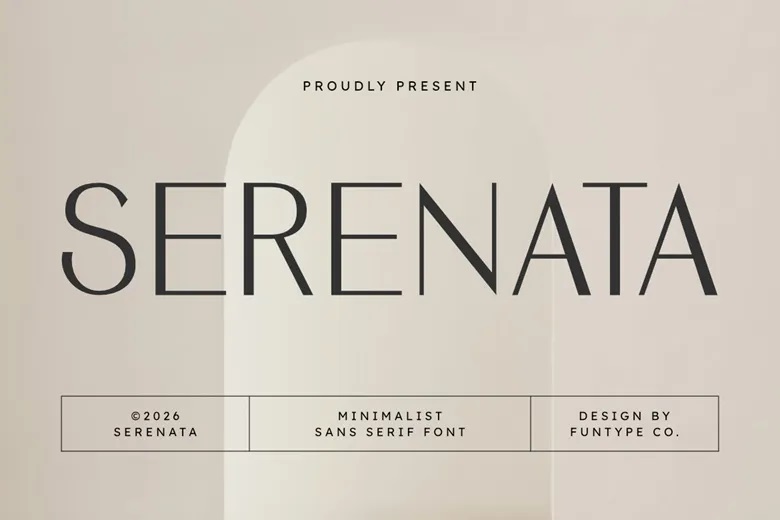
Serenata Font
Serenata is a carefully designed sans-serif font that captures the essence of modern minimalism. Its clean lines, thin strokes, and balanced shapes give it a look that feels both classic and current. Serenata is made for creators who believe that “less is more.”
Serenata’s light and open style works well for luxury branding, where white space and elegance matter. It stands out in high-end editorial designs, minimalist logos, and stylish social media layouts, giving each project a polished and premium feel.
Serenata Sans Serif Font